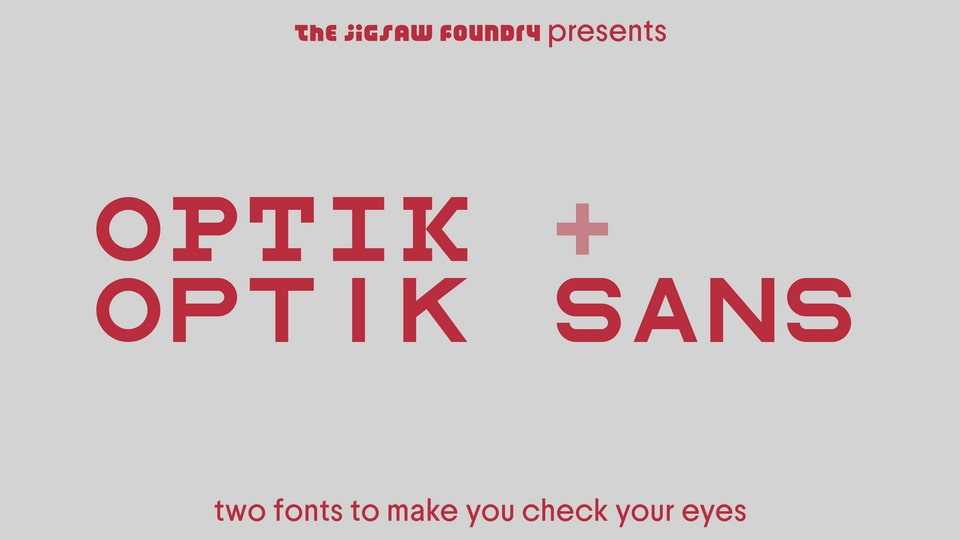
Download The TJF Optik font, mini-superfamily based off of many a trip to the doctor’s for a half-annual checkup. TJF Optik is based off of the charts with slab-serif letters by Herman Snellen, whereas TJF Optik Sans is based off of the charts with grotesque letters by Doctor Louise Sloan.